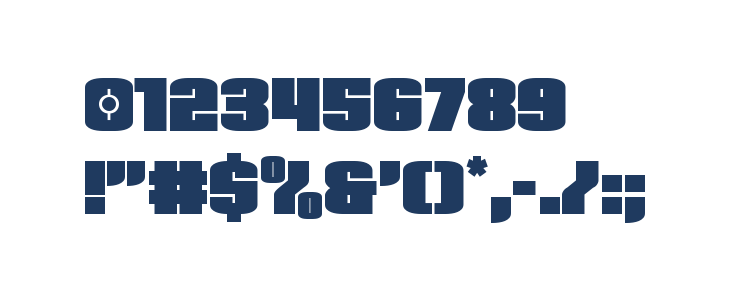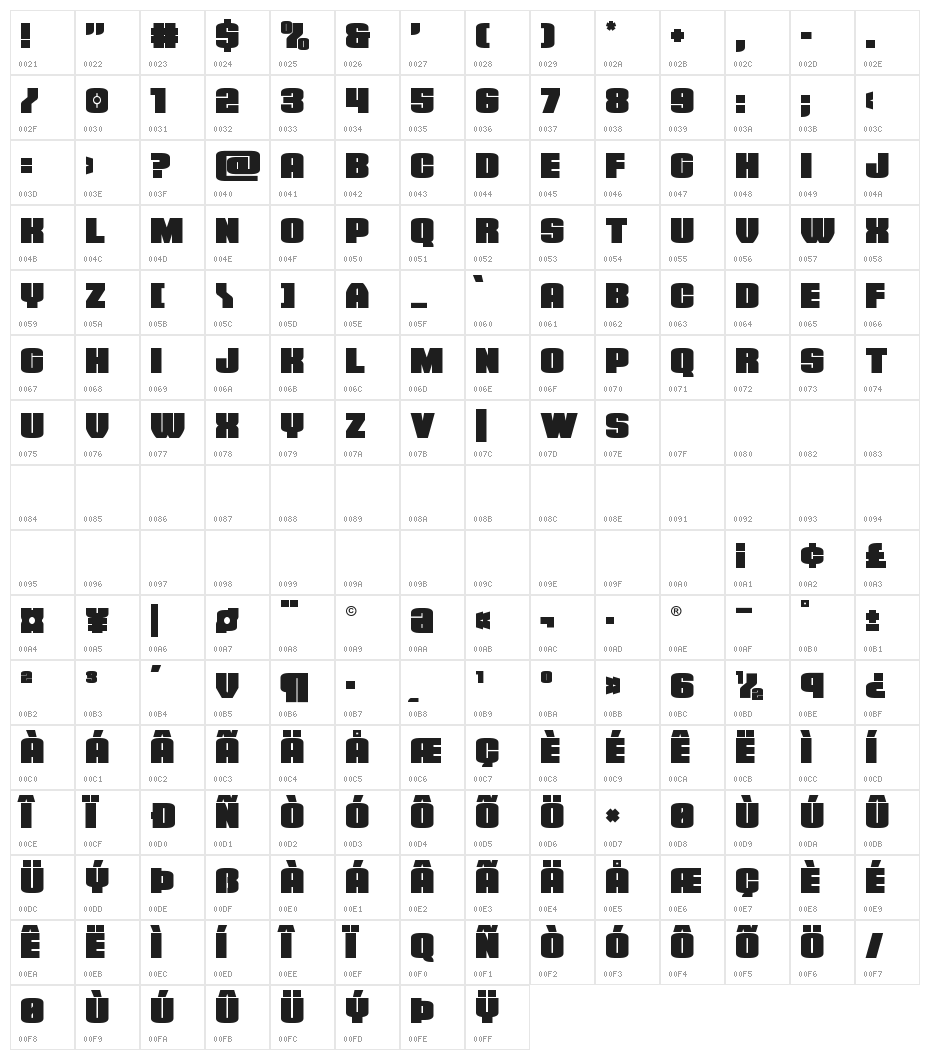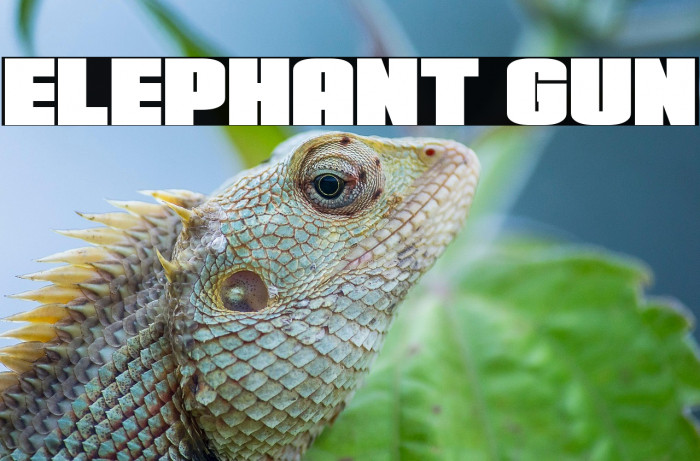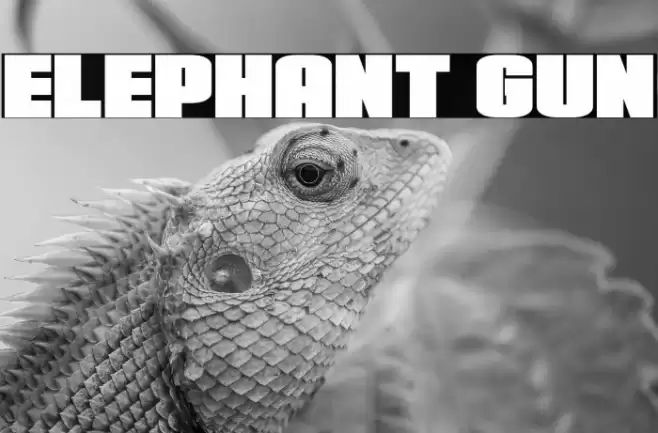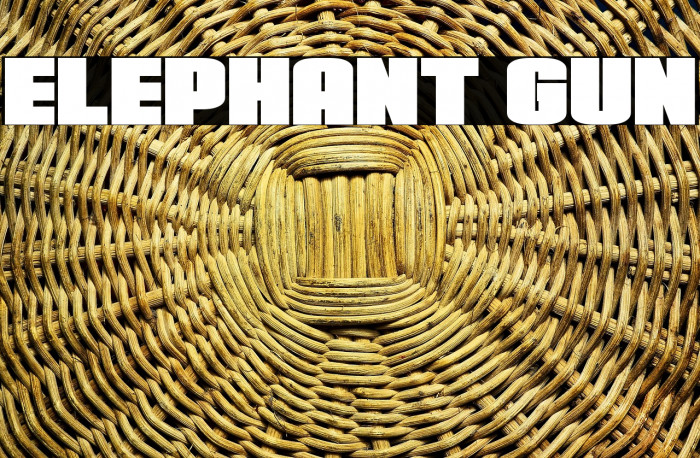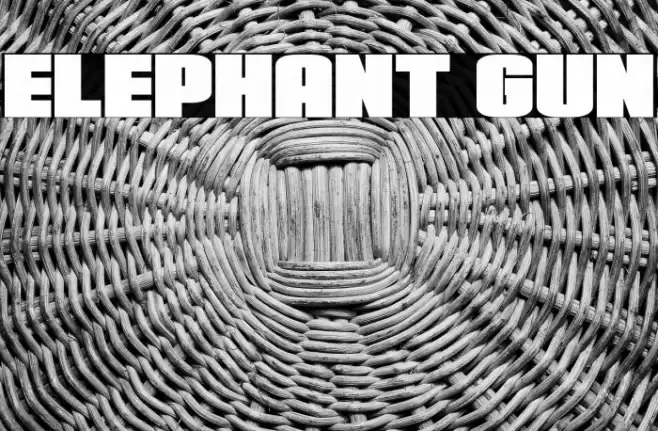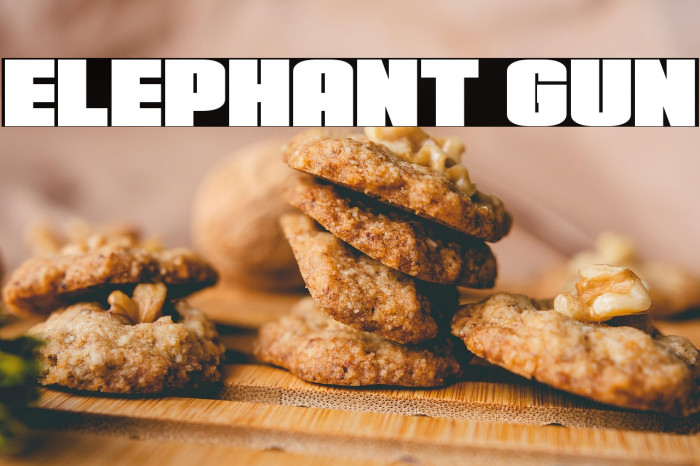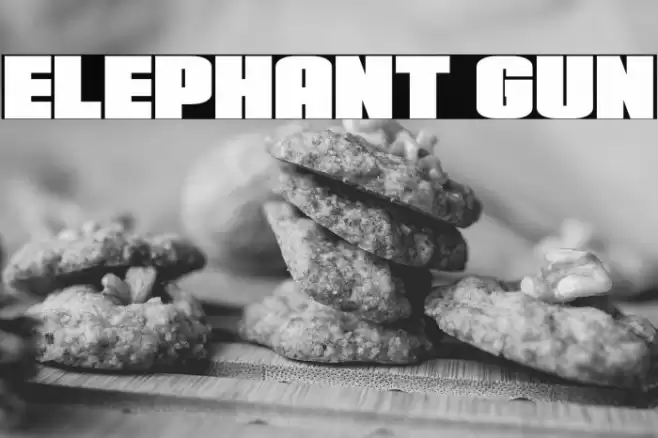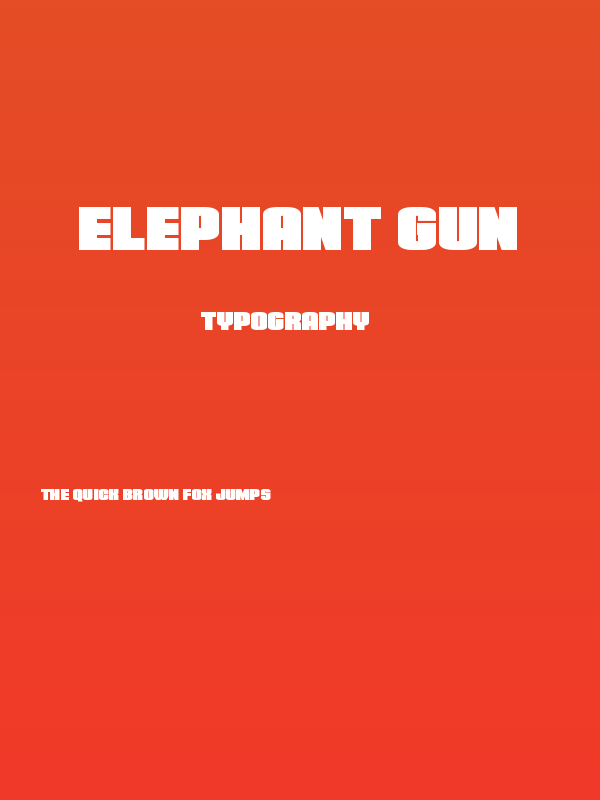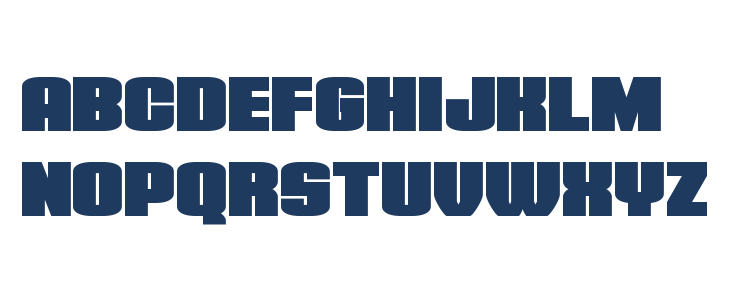
Elephant Gun Font
Elephant Gun Description
This bold and impactful font features thick, blocky characters that command attention. The uppercase and lowercase letters are uniform in width, creating a cohesive and powerful visual presence. The numbers and special characters maintain the same boldness, ensuring consistency across all elements. The font's design is straightforward yet striking, with a modern and slightly industrial feel. Its strong lines and solid structure make it ideal for projects that require a bold statement. The character spacing is tight, enhancing its compact and robust appearance.
| Overall Style | Modern, Industrial |
| Proposed Projects | Ideal for headlines, posters, logos, and branding materials that require a strong visual impact. |